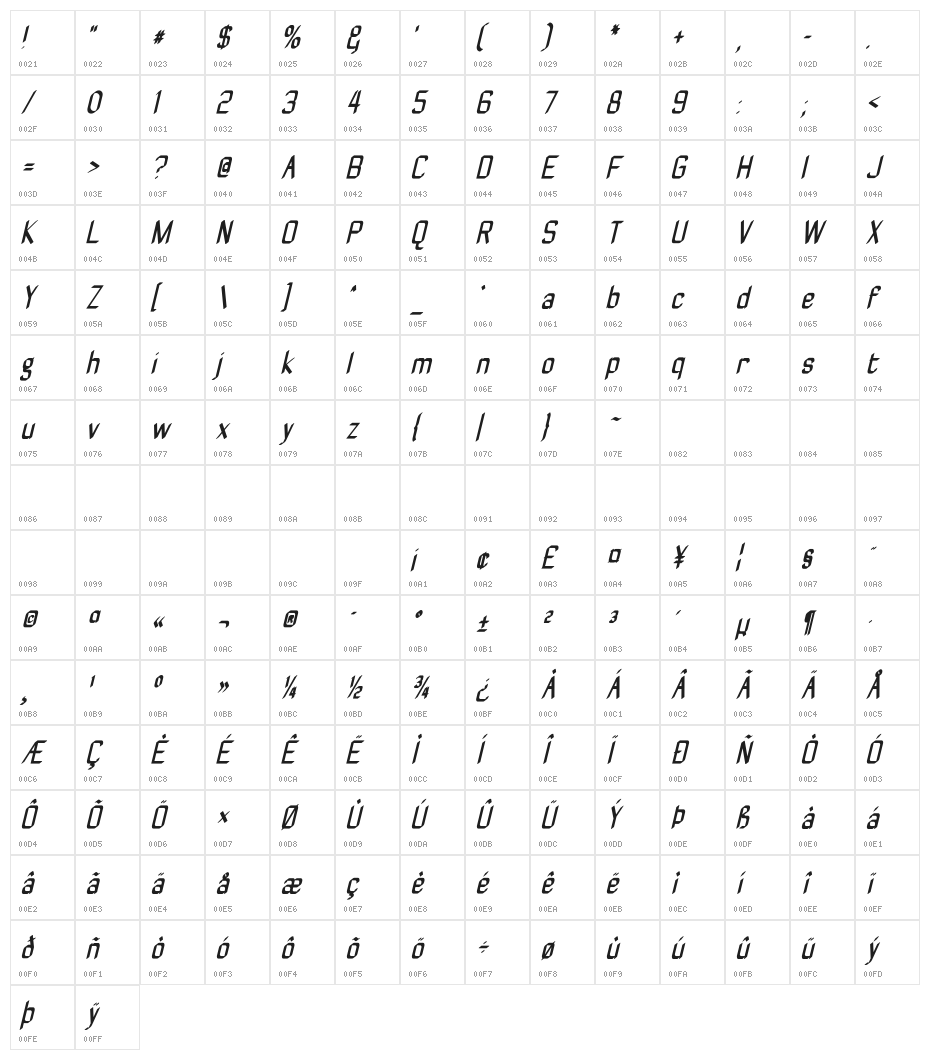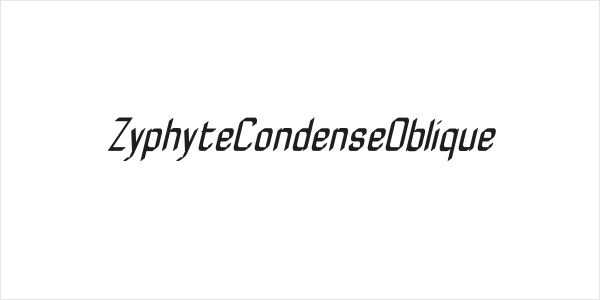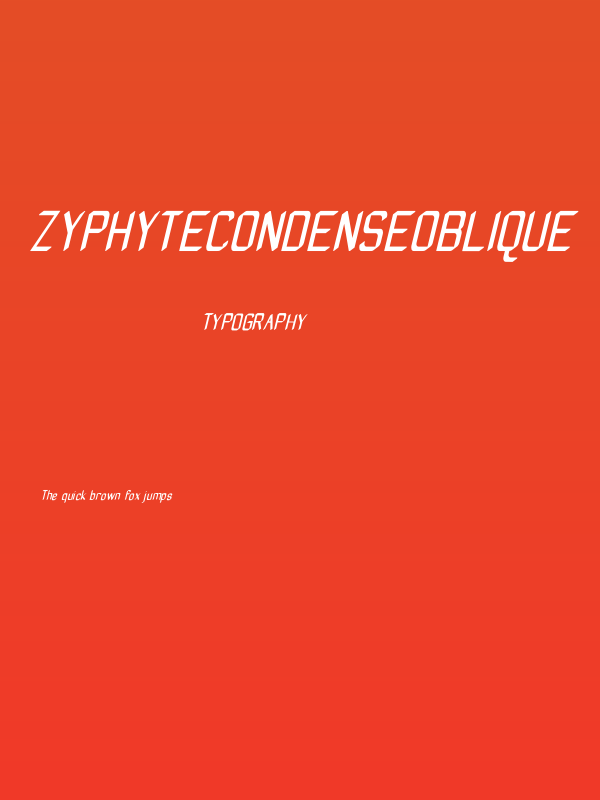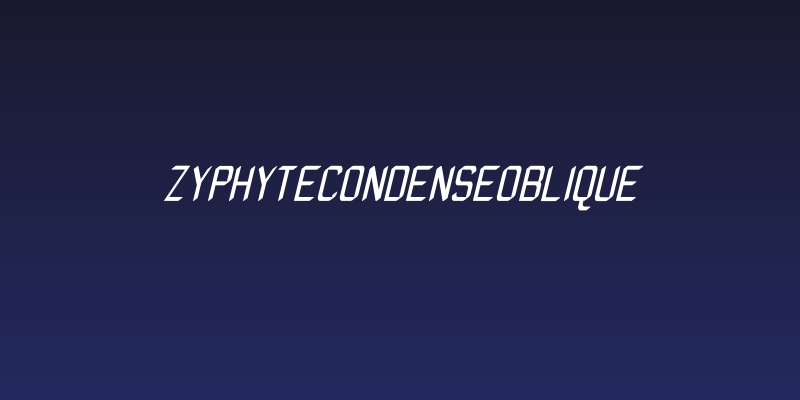
ZyphyteCondenseOblique Font
ZyphyteCondenseOblique Description
This font features a dynamic and modern oblique style with condensed letterforms, giving it a sleek and streamlined appearance. The characters are slightly slanted, adding a sense of motion and energy. The uppercase and lowercase letters maintain a consistent stroke width, contributing to a uniform look. The numerals and special characters are designed to complement the alphabet, ensuring readability and cohesion across different uses. The font's angular edges and sharp corners enhance its contemporary feel, making it suitable for projects that require a bold and assertive visual impact.
| Proposed Projects | Ideal for branding, sports team logos, dynamic posters, and modern web design. |